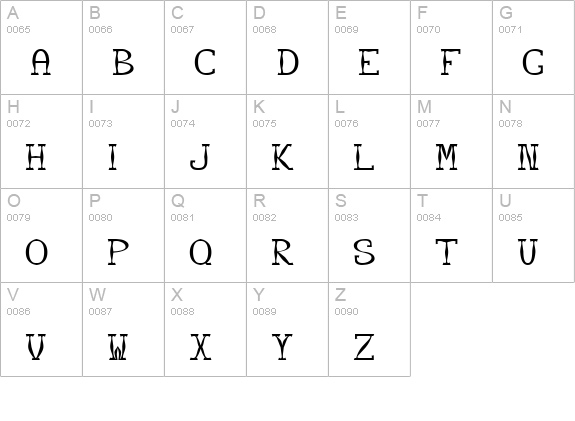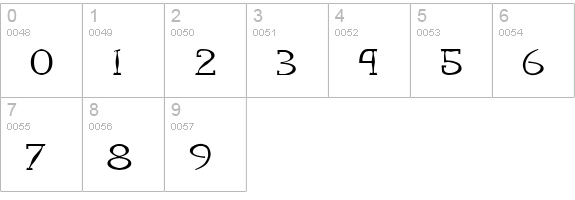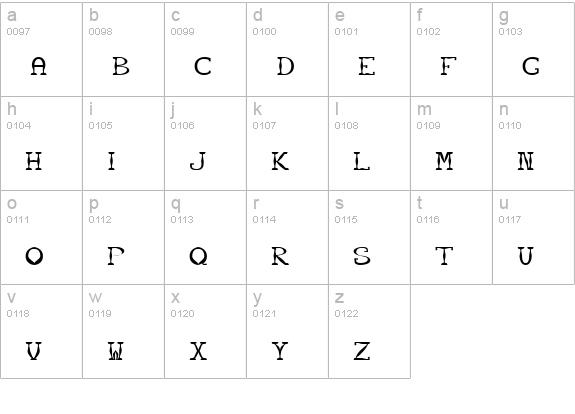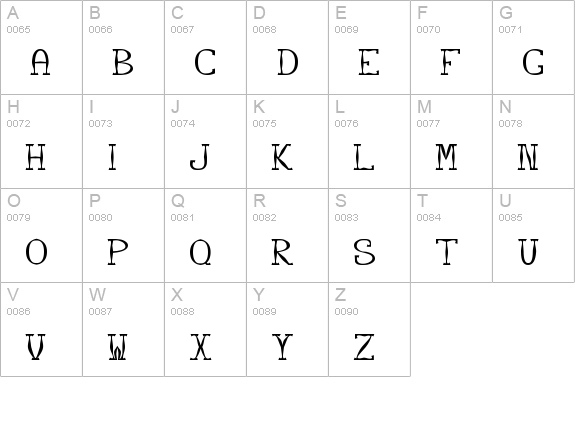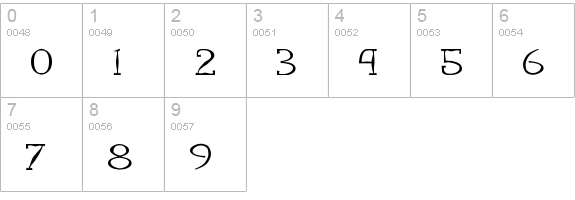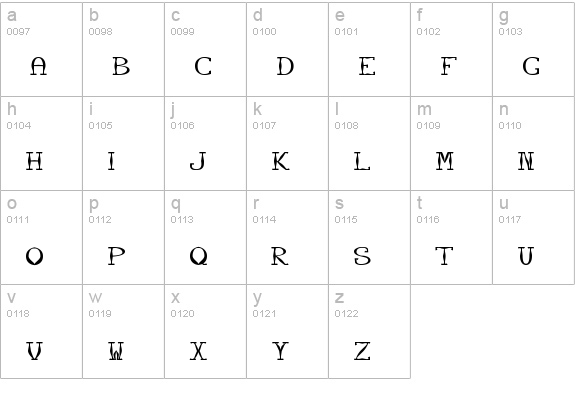
Louisbourg Font Details
Louisbourg font is a charming and elegant typeface that exudes sophistication and class. With its delicate serifs and graceful curves, Louisbourg is perfect for adding a touch of refinement to any design project. Whether you're creating invitations, branding materials, or editorial layouts, this versatile font will elevate your work to new heights. The best part? Louisbourg font is completely free to download at FontsMarket.com. Yes, that's right - you can enjoy the beauty and elegance of Louisbourg at no cost. Don't miss out on this incredible opportunity to enhance your designs with this stunning font. Download Louisbourg today and let your creativity shine!